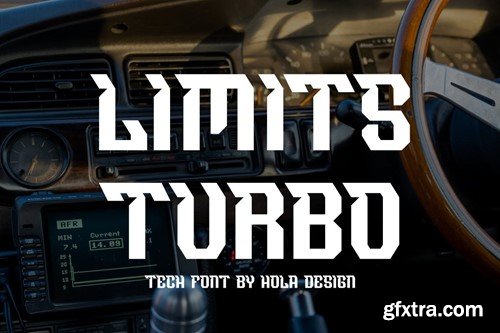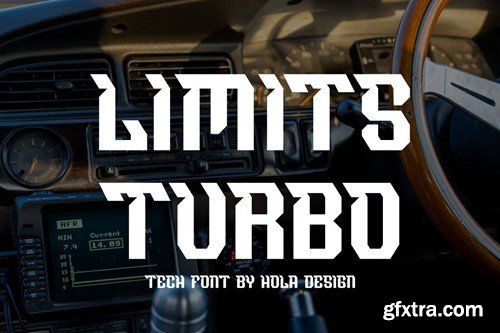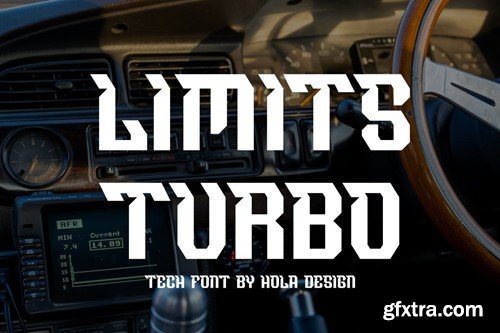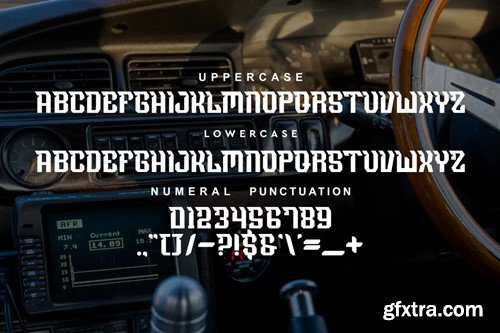
极限 turbo - 技术与体育字体 XTEJA8E
Limits Turbo - Technology & Sports Font XTEJA8E
Limits Turbo - Technology & Sports Font
Limits Turbo - Technology Font Font is unique . Ready to use for your design like labeling, movie sceen, poster, movie title, gigs, album covers, logos, and much more.